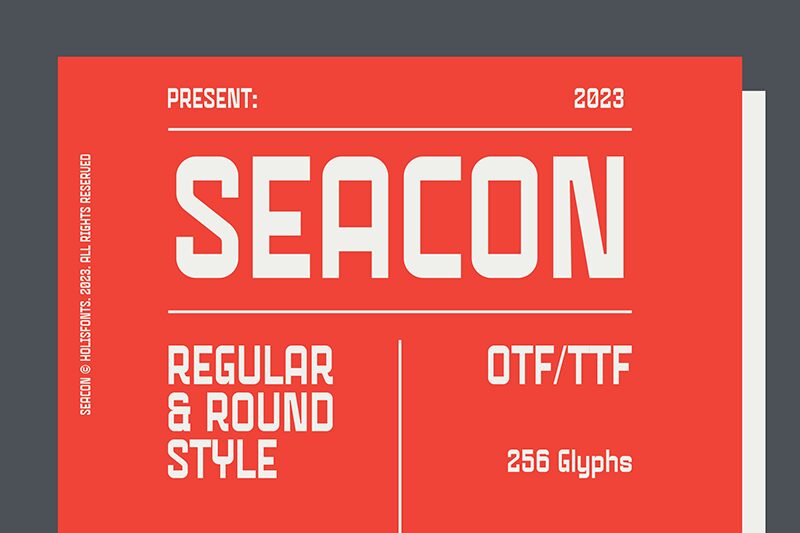
Seacon font by Holisfonts.com effortlessly combines a geometric structure with sleek curves and corners to create a minimalist design with a modern aesthetic. Its characters, featuring circular shapes and curved diagonals, adopt a futuristic appearance inspired by the famous Eurostyle typeface but with various innovative personal twists.
This free sans serif font can find its uses in headings, websites, branding projects, product packaging, labels, social media posts, books covers/titles (or insides), and other designs requiring typical-size body-texts. Other applications include architecture-related presentations and organisation visual identities (business cards/flyers/stationery).